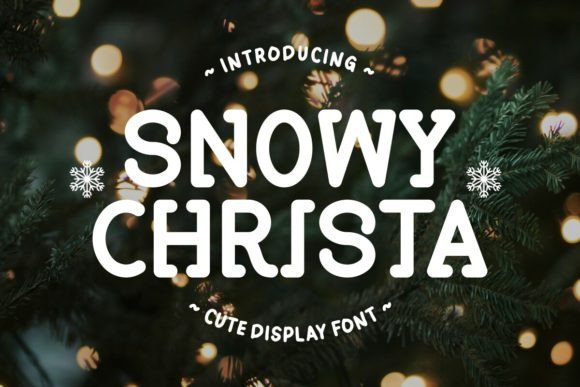
Introducing the Snowy Christa Font, a delightful display font that will transport you to the magical world of Christmas. Designed by the talented Pian45, this enchanting typeface embodies the spirit of the holiday season, bringing joy and charm to all your creative projects.
With its whimsical design, Snowy Christa is the perfect choice for adding a touch of festive cheer to your Holiday Greetings, Invitations, Gift Wrapping, Decoration, Digital Art, Crafting, and so much more. Let your imagination run wild as you explore the endless possibilities this font offers.
Captivate your audience with the unique style and attention to detail that Snowy Christa brings to your designs. Its playful curves and elegant strokes will instantly catch the eye and create a lasting impression. Whether you're designing a Christmas-themed website, creating stunning graphics, or crafting personalized gifts, this font will elevate your creations to new heights.
Embrace the magic of Christmas with Snowy Christa Font. Let it transport you to a world filled with wonder and joy. Whether you're a professional designer or a DIY enthusiast, this font is a must-have in your toolkit. Unlock your creativity and bring your ideas to life with this captivating and versatile typeface.